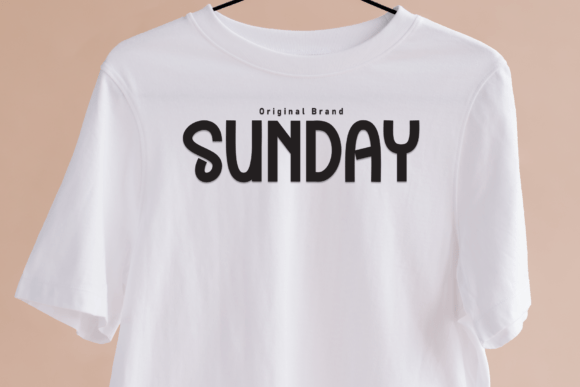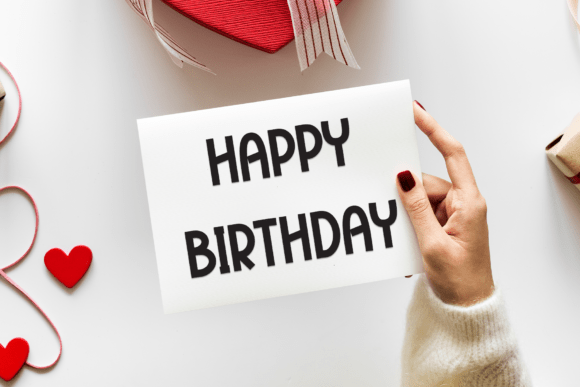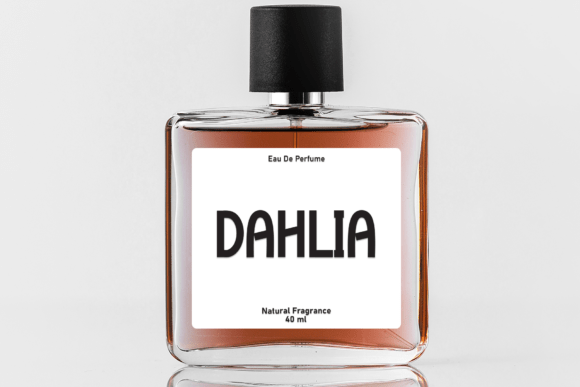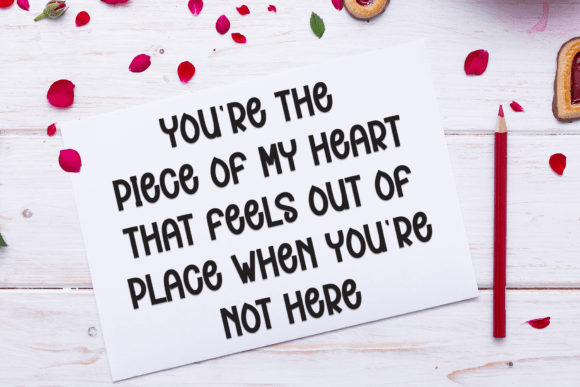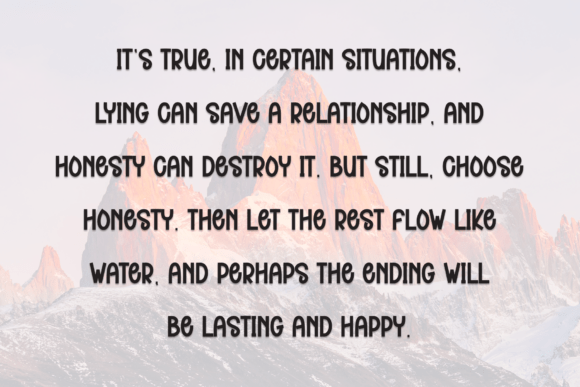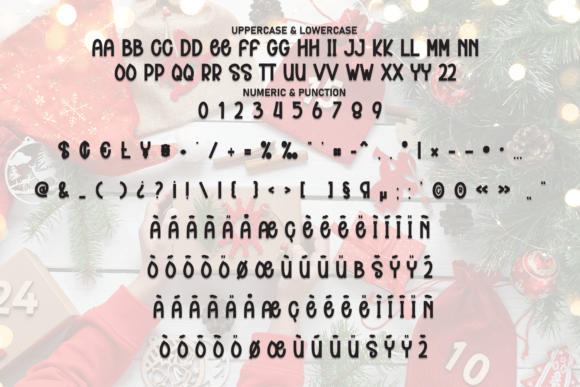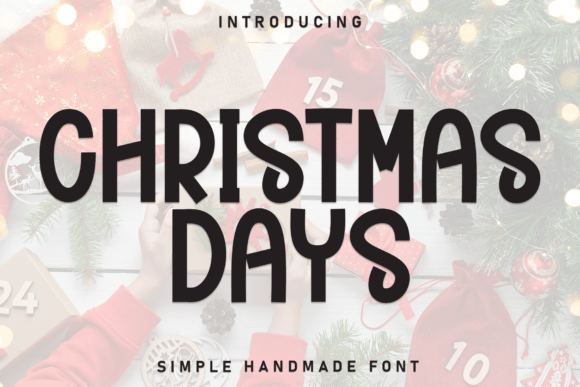
Introducing Christmas Days Font: The Perfect Choice for Festive Designs
Are you looking for a font that can add a touch of modern elegance and sophistication to your holiday designs? Look no further than Christmas Days Font. This impactful and authoritative display font is designed to make a statement, with a unique blend of technical precision and handmade warmth.
What Makes Christmas Days Font So Special?
Christmas Days Font is a simple, yet powerful font that features thick letterforms characterized by consistent monolinear strokes and a stable vertical axis. This organized, technical silhouette gives the font a strong and sturdy feel, making it perfect for high-energy seasonal marketing, creative holiday logo design, contemporary product labels, and modern social media headers.
The Perfect Balance of Structure and Warmth
While Christmas Days Font maintains a grounded structure, it also features subtle hand-lettered irregularities that provide a warm, approachable visual flow. This balance of technical precision and handmade charm makes the font both high-impact and inviting. Whether you’re designing a holiday greeting card, a festive poster, or a seasonal social media graphic, Christmas Days Font is the perfect choice.
Use Cases for Christmas Days Font
Christmas Days Font is an incredibly versatile font that can be used in a wide range of design applications. Here are just a few ideas to get you started:
- Holiday Marketing Materials: Use Christmas Days Font to create eye-catching holiday marketing materials, such as posters, flyers, and social media graphics.
- Logo Design: Create a festive and modern holiday logo with Christmas Days Font. The font’s bold, thick letterforms make it perfect for creating a logo that will stand out.
- Product Labels: Add a touch of modern elegance to your product labels with Christmas Days Font. The font’s technical precision and handmade warmth make it perfect for labeling holiday products, such as gifts, decorations, and treats.
- Social Media Headers: Use Christmas Days Font to create festive and engaging social media headers that will grab the attention of your followers.
Why Choose Christmas Days Font?
There are many fonts to choose from, but Christmas Days Font stands out from the crowd. Here are just a few reasons why:
- Unique and Impactful: Christmas Days Font is a unique and impactful font that will make your designs stand out.
- Versatile: The font is incredibly versatile and can be used in a wide range of design applications.
- Easy to Read: Despite its bold and thick letterforms, Christmas Days Font is easy to read, even at small sizes.
- High-Quality: The font is designed to high-quality standards, ensuring that it will look great in any design.
Key Features of Christmas Days Font
- Font Type: Display Font
- Font Style: Bold, Thick Letterforms
- Key Features: Consistent monolinear strokes, stable vertical axis, subtle hand-lettered irregularities
- Use Cases: Holiday marketing materials, logo design, product labels, social media headers